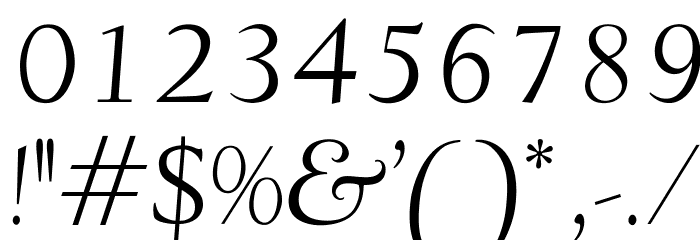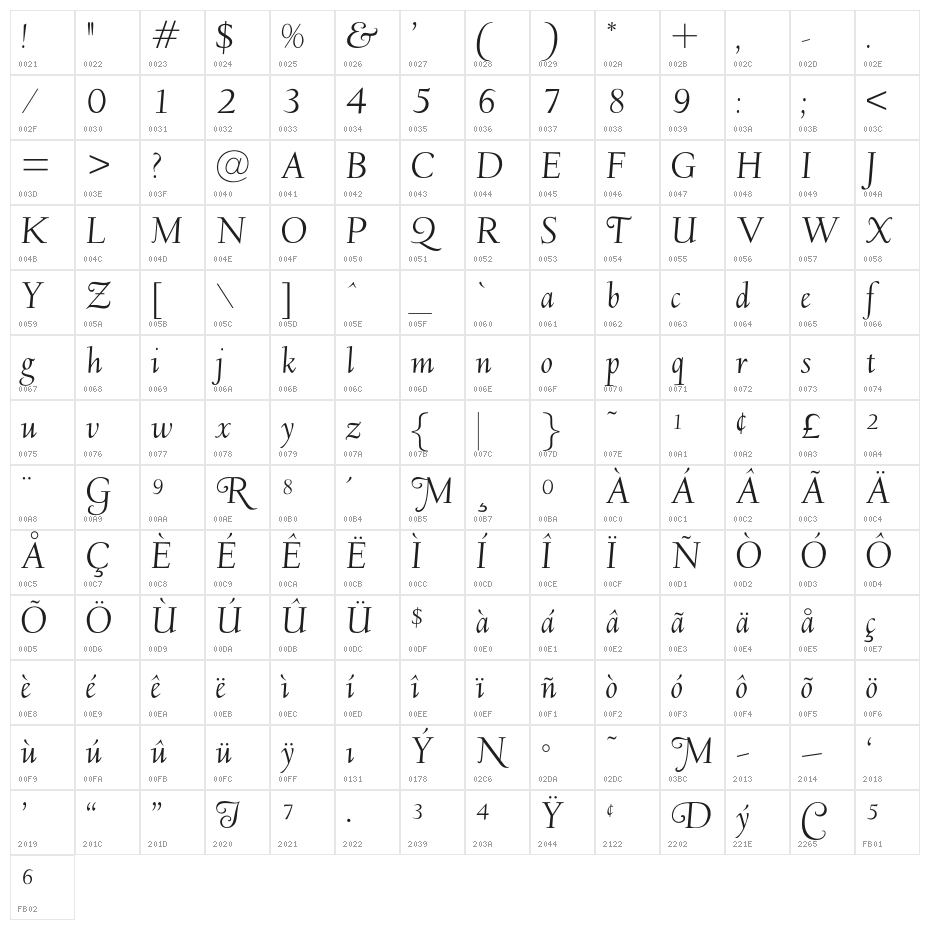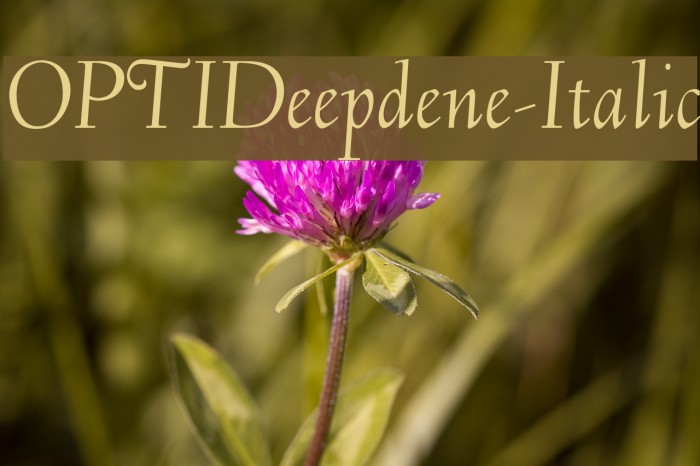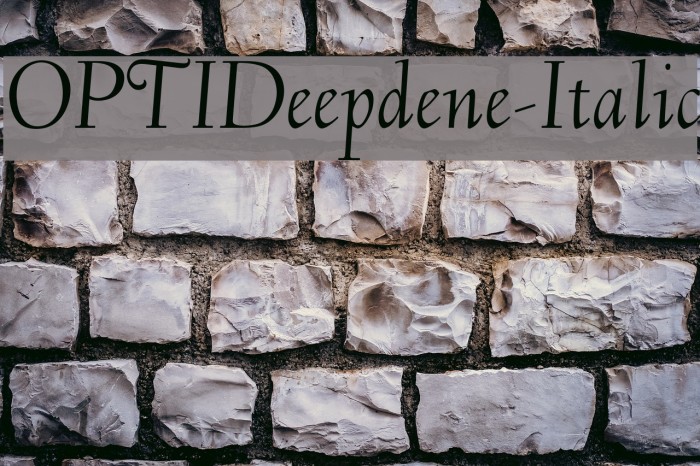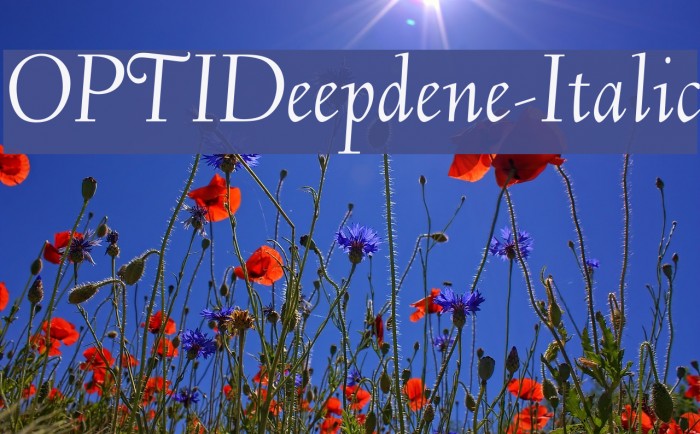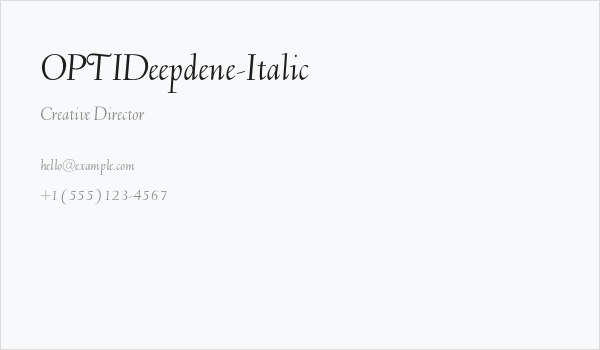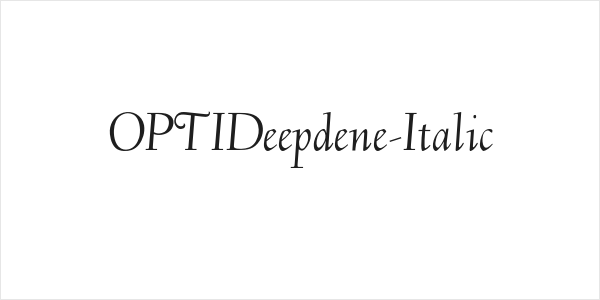
OPTIDeepdene-Italic Font
OPTIDeepdene-Italic Description
This elegant serif font features a classic italic style with smooth, flowing curves and a refined appearance. The uppercase letters are tall and slender, while the lowercase letters maintain a consistent slant, adding a sense of movement and grace. The numerals are well-proportioned, complementing the overall aesthetic. Special characters are thoughtfully designed, maintaining the font's sophisticated look. The font's high contrast between thick and thin strokes enhances its readability and visual appeal, making it suitable for a variety of design applications.
An elegant serif font with a classic italic style and high contrast from Uncategorized fonts.
- Proposed Projects: Ideal for use in editorial design, book covers, formal invitations, and branding projects that require a touch of sophistication.
- Overall Style: Classic